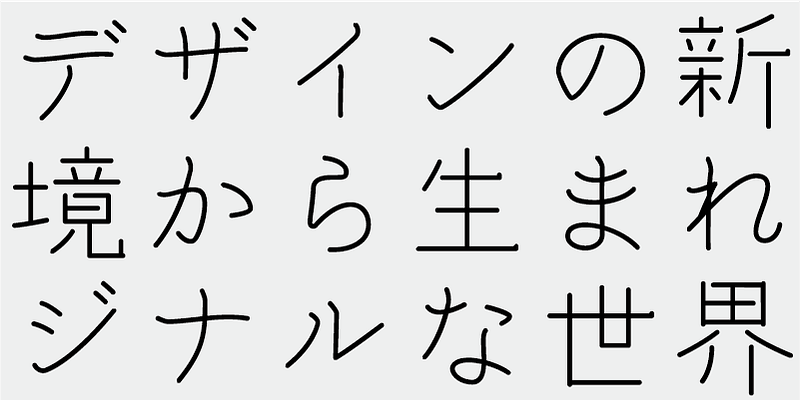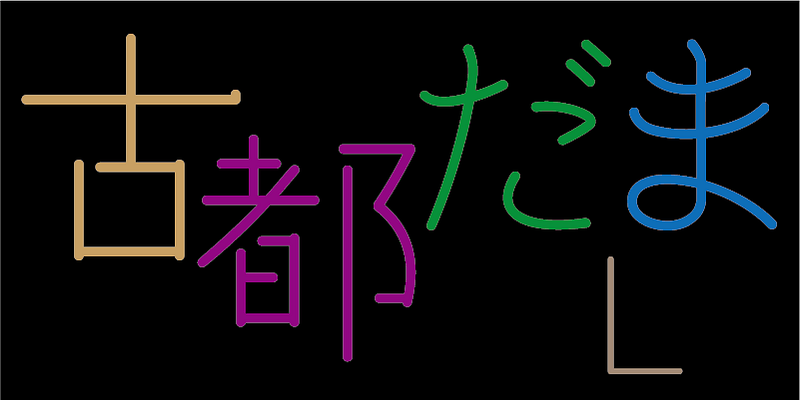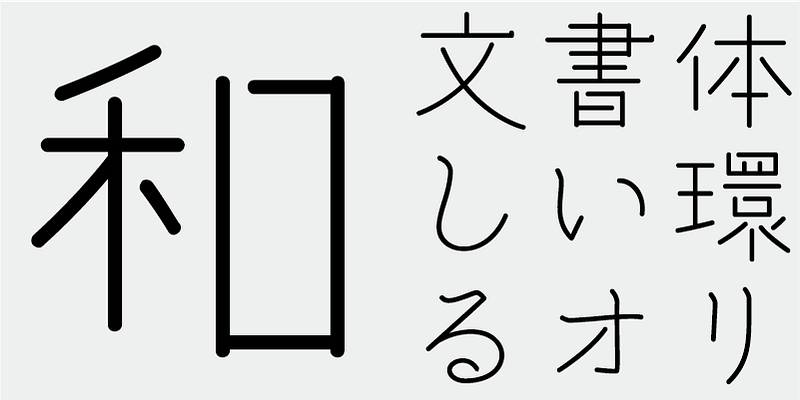
“Don’t be stiff-necked and rigidly formal”. This rounded corner gothic (sans-serif) typeface with wider side-bearings gives typeset results a sense of softness.